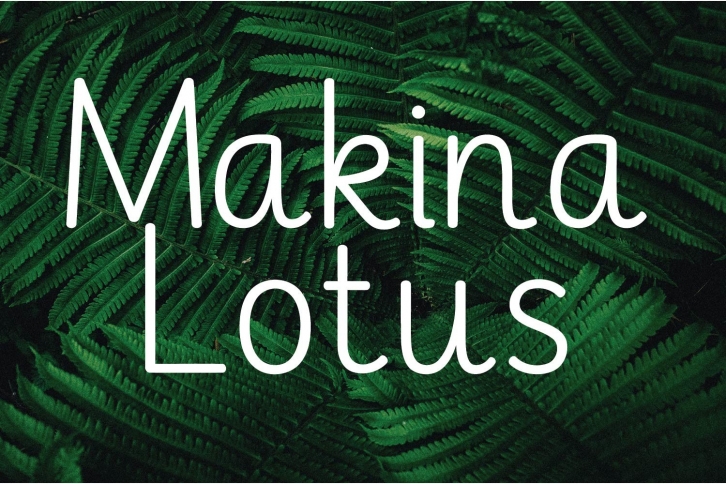
Makina Lotus is casual and neat handwritten font. Whatever the topic, this font will be a wonderful asset to your font library, as it has the potential to enhance any creation.